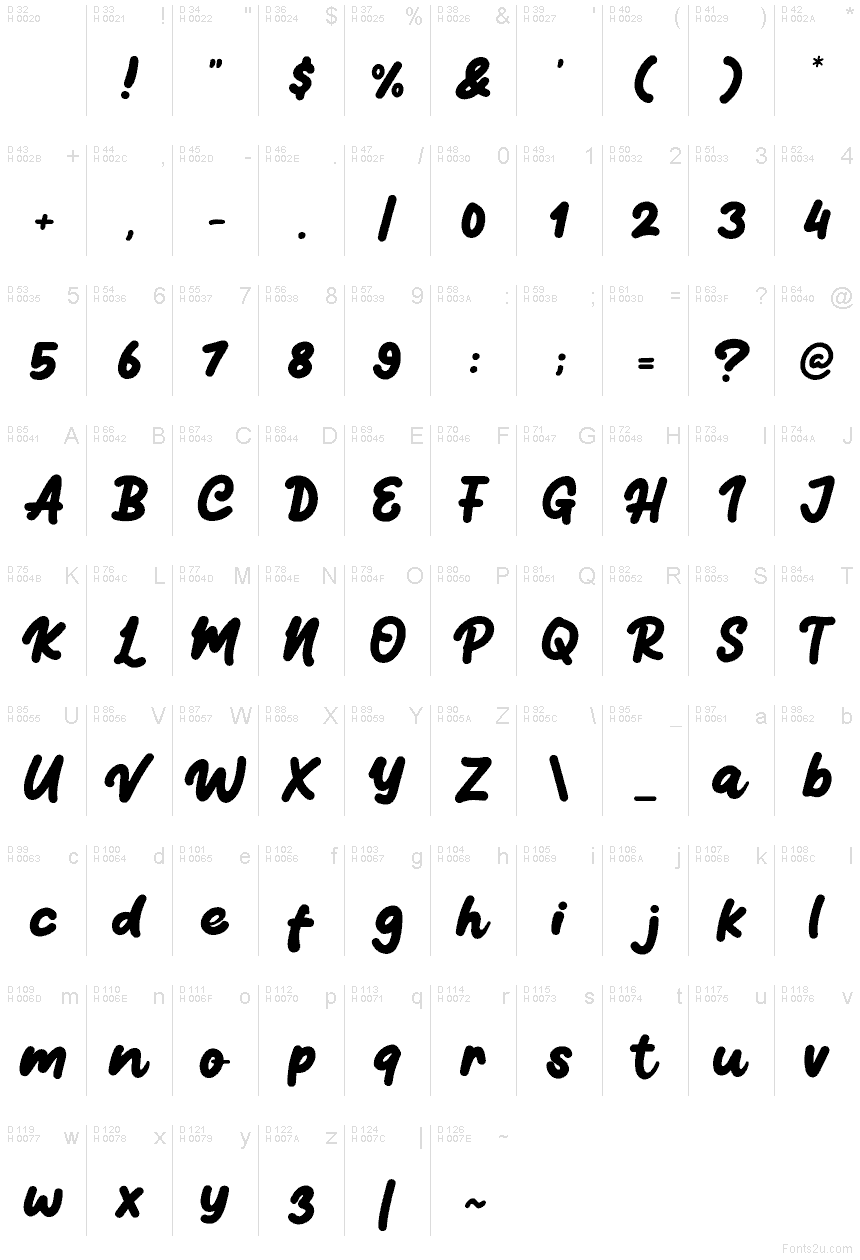
Bahu
Bahu font designed by Suzuran San is a free brush font with a bold weight. Its smooth and casual strokes communicate approachability and friendliness, making it ideal for clear passages of reading. Modern, legible, stylish, and neat in design; Bahu combines the ease of digital typing with all the bonuses of handwritten text.
Use Bahu in magazines, newspaper headlines, website titles, logos/brands/sub-branding phrases for companies like skincare brands. Use it in headings/titles/cover art/call-to-action blurbs for books or posters. It also adapts well to elegant event invitations/presentations including weddings-invitations/cards!